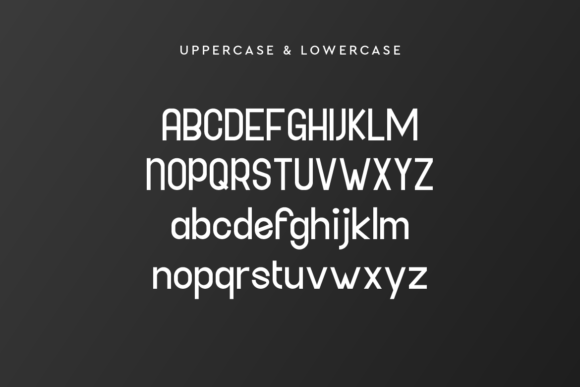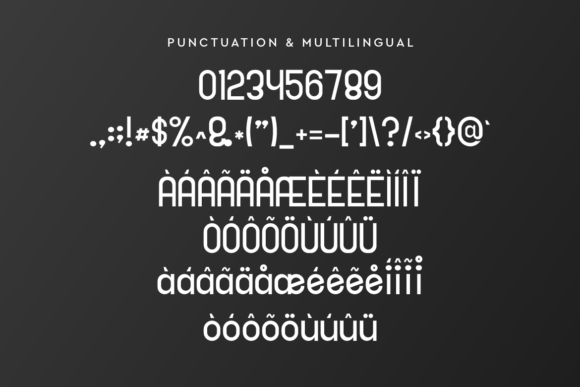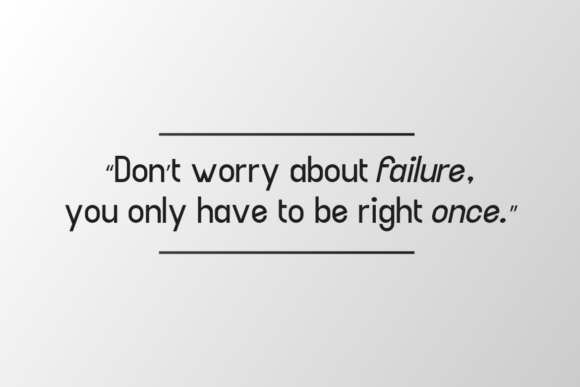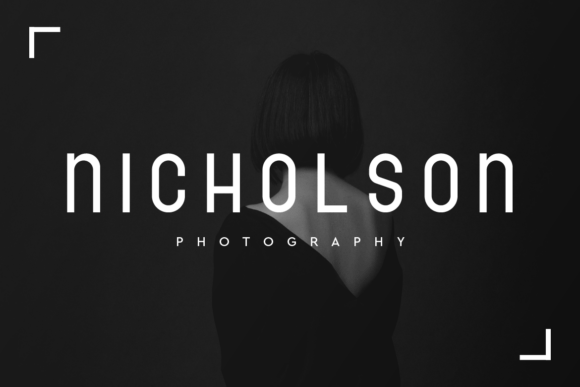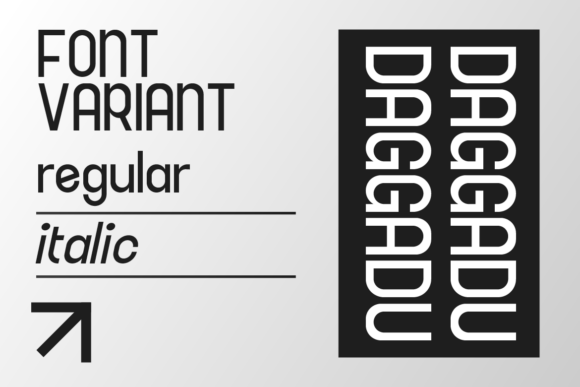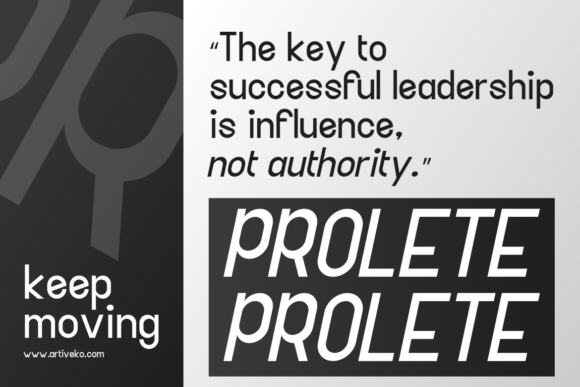
Daggadu Font: A Powerful Sans Serif for Impactful Designs
In the world of typography, fonts play a crucial role in conveying messages, expressing emotions, and creating visual identities. For designers and crafters, finding the right font can make all the difference in their projects. If you’re looking for a bold, modern, and versatile font, look no further than Daggadu Font. In this article, we’ll explore the features, benefits, and uses of Daggadu, and why it’s becoming a go-to choice for designers and crafters alike.
What is Daggadu Font?
Daggadu is a powerful sans serif font that combines bold geometry with clean minimalism. Designed to create an impactful visual presence, Daggadu is perfect for a wide range of applications, including branding, posters, packaging, sports graphics, headlines, and digital media projects. Its unique blend of strength and simplicity makes it an excellent choice for designers seeking to make a statement.
Key Features of Daggadu Font
- Bold Geometry: Daggadu’s geometric shapes and lines create a strong, confident look that’s perfect for headlines, titles, and emphasis text.
- Clean Minimalism: The font’s minimalist approach ensures that your message is clear and uncluttered, making it ideal for body text, descriptions, and captions.
- Sans Serif: Daggadu’s sans serif design provides a modern, sleek look that’s perfect for digital media, magazines, and advertising.
- Versatility: Daggadu is suitable for a wide range of projects, from branding and packaging to sports graphics and digital media.
Benefits of Using Daggadu Font
So, why should you choose Daggadu Font for your next project? Here are just a few benefits:
- Impactful Visual Presence: Daggadu’s bold geometry and clean design create a lasting impression on your audience.
- Legibility: The font’s clear, sans serif design ensures that your text is easy to read, even at small sizes.
- Flexibility: Daggadu is suitable for a wide range of projects and applications, making it a great addition to your font library.
- Time-Saving: With Daggadu, you can create professional-looking designs quickly and efficiently, saving you time and effort.
Uses of Daggadu Font
Daggadu Font is an incredibly versatile font that can be used in a variety of projects, including:
- Branding: Create a strong, memorable brand identity with Daggadu’s bold, geometric design.
- Posters: Grab attention with Daggadu’s impactful headlines and titles.
- Packaging: Stand out on store shelves with Daggadu’s clean, modern design.
- Sports Graphics: Add energy and excitement to your sports-related designs with Daggadu’s bold, dynamic look.
- Digital Media: Create engaging, professional-looking digital content with Daggadu’s sleek, modern design.